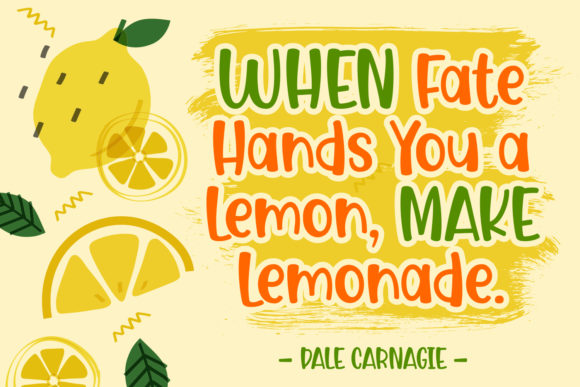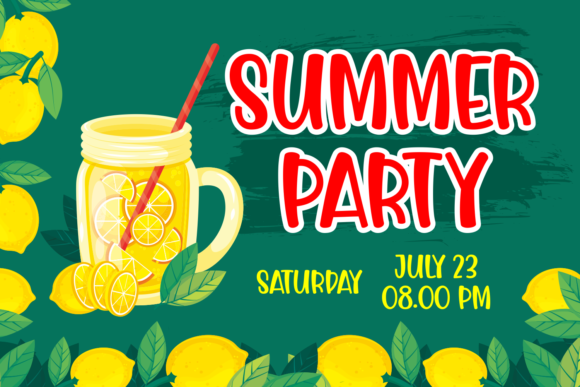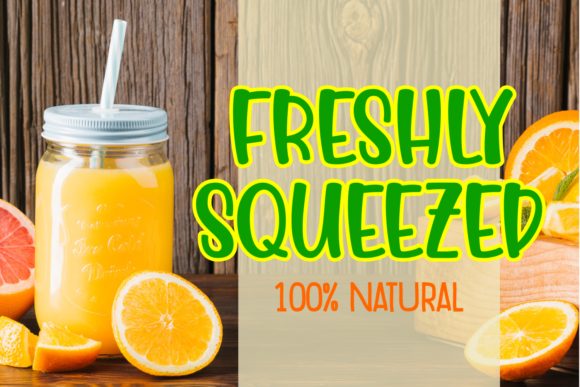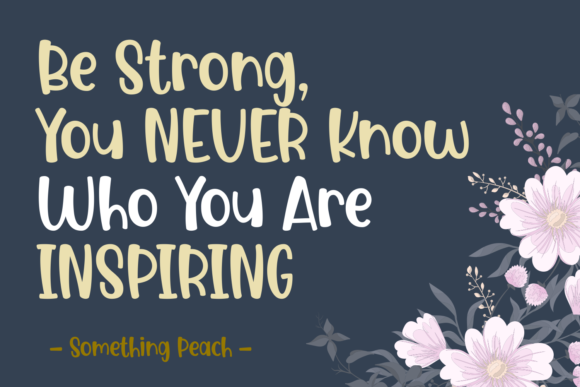
Cream Lemonade Font: The Perfect Addition to Your Design Toolbox
Are you tired of using the same old fonts in your designs? Look no further than Cream Lemonade, a jolly display font that’s sure to brighten up any project. With its adaptable style and light-hearted touch, Cream Lemonade is the perfect addition to your design toolbox.
What is Cream Lemonade Font?
Cream Lemonade is a display font that’s designed to add a touch of fun and whimsy to your designs. Its unique style is reminiscent of a cold glass of lemonade on a hot summer day – refreshing, revitalizing, and sure to put a smile on your face. Whether you’re working on a branding project, a poster, or a social media graphic, Cream Lemonade is the perfect font to add some personality and flair.
Key Features of Cream Lemonade Font
- Adaptable style: Cream Lemonade is a versatile font that can be used in a variety of design contexts. Whether you’re creating a bold headline or a playful body of text, Cream Lemonade adapts seamlessly to fit your needs.
- Light-hearted touch: This font is designed to add a touch of whimsy and fun to your designs. Its light-hearted style is perfect for projects that require a playful and carefree vibe.
- Easy to read: Despite its playful style, Cream Lemonade is surprisingly easy to read. This makes it perfect for use in body text, as well as headlines and titles.
How to Use Cream Lemonade Font in Your Designs
So, how can you use Cream Lemonade in your designs? Here are a few ideas to get you started:
- Branding projects: Use Cream Lemonade as a logo font or as a font for your brand’s marketing materials. Its unique style is sure to help your brand stand out.
- Posters and flyers: Add some personality to your posters and flyers with Cream Lemonade. Its bold style is perfect for headlines and titles.
- Social media graphics: Use Cream Lemonade to add some fun and whimsy to your social media graphics. Its light-hearted style is perfect for creating engaging and shareable content.
- Invitations and cards: Cream Lemonade is also a great font for use in invitations and cards. Its playful style is perfect for special occasions like birthdays, weddings, and baby showers.
Tips for Pairing Cream Lemonade with Other Fonts
When pairing Cream Lemonade with other fonts, here are a few tips to keep in mind:
- Pair with a serif font: Cream Lemonade pairs well with serif fonts like Georgia or Times New Roman. The contrast between the playful Cream Lemonade and the traditional serif font creates a visually appealing combination.
- Pair with a sans-serif font: Cream Lemonade also pairs well with sans-serif fonts like Arial or Helvetica. The clean lines of the sans-serif font provide a nice contrast to the playful Cream Lemonade.
- Use Cream Lemonade as a headline font: Cream Lemonade is perfect for use as a headline font. Pair it with a more traditional font for body text to create a visually appealing combination.
In conclusion, Cream Lemonade is a versatile and fun font that’s perfect for adding some personality and whimsy to your designs. Its adaptable style and light-hearted touch make it a great addition to any design toolbox. Whether you’re working on a branding project, a poster, or a social media graphic, Cream Lemonade is sure to brighten up your design and leave a lasting impression.
Get Creative with Cream Lemonade Font